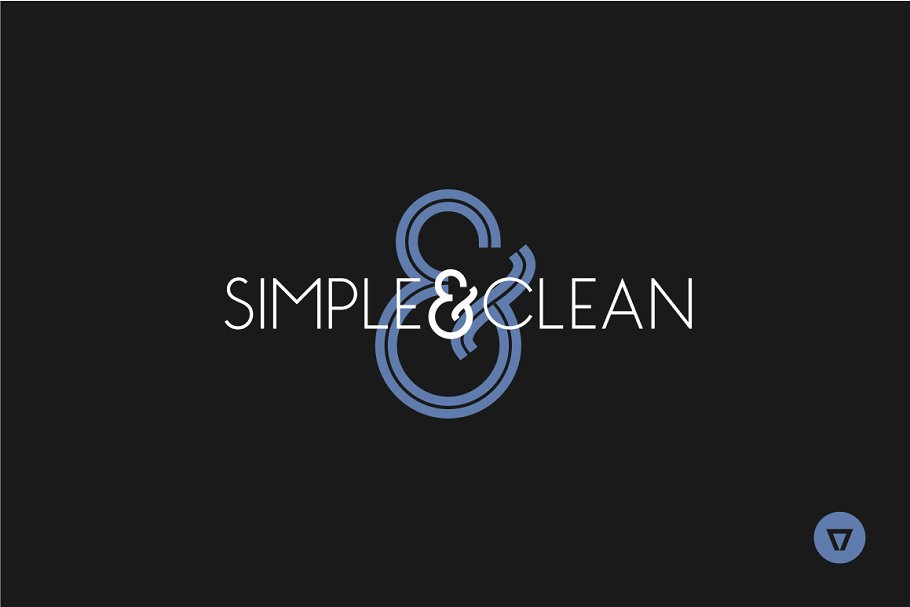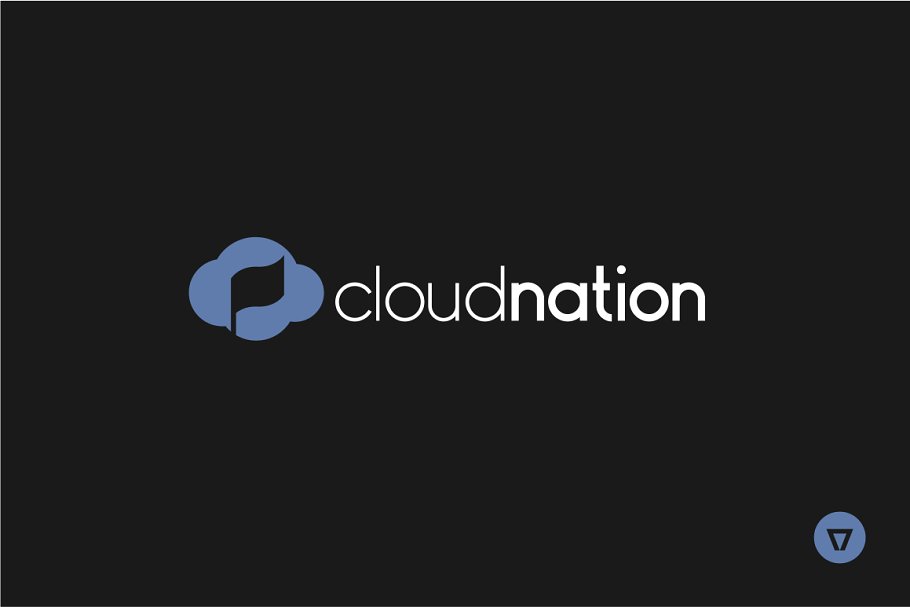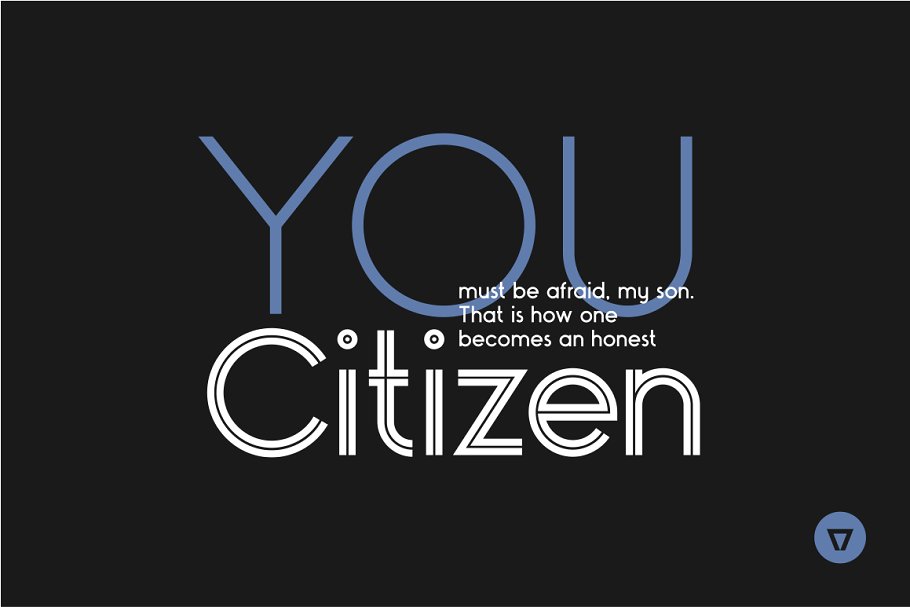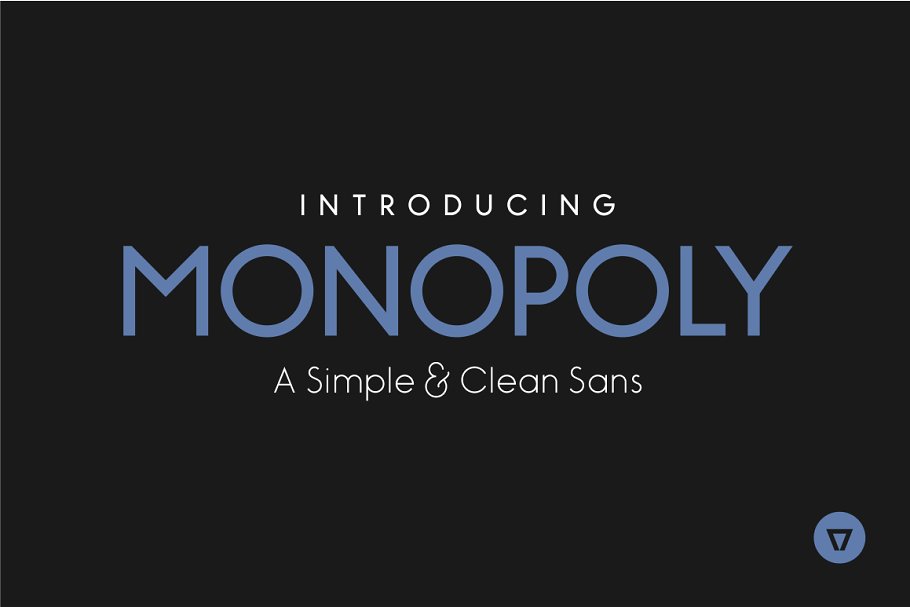
Monopoly Sans Font
A modern simple and clean sans typeface. It will fit all your design projects. Introducing Monopoly Typeface. Monopoly is a modern, simple and clean monolinear sans-serif. It has a complete western character set and comes in 3 styles: Light, Bold and Bold Inline giving it the versatility and unique look needed for your design project. Monopoly created for poster, web design, branding, illustrations, badges and some other works.